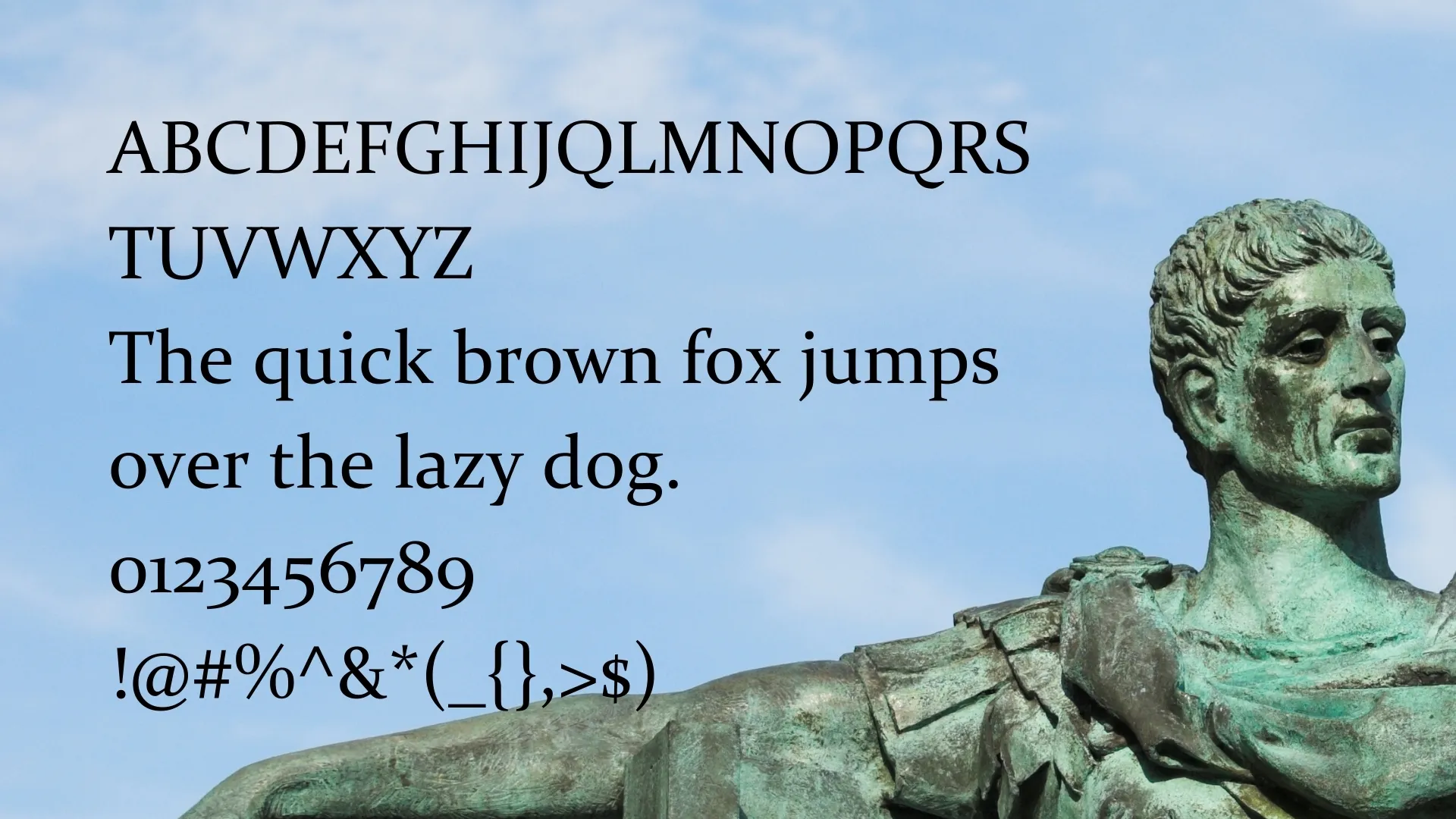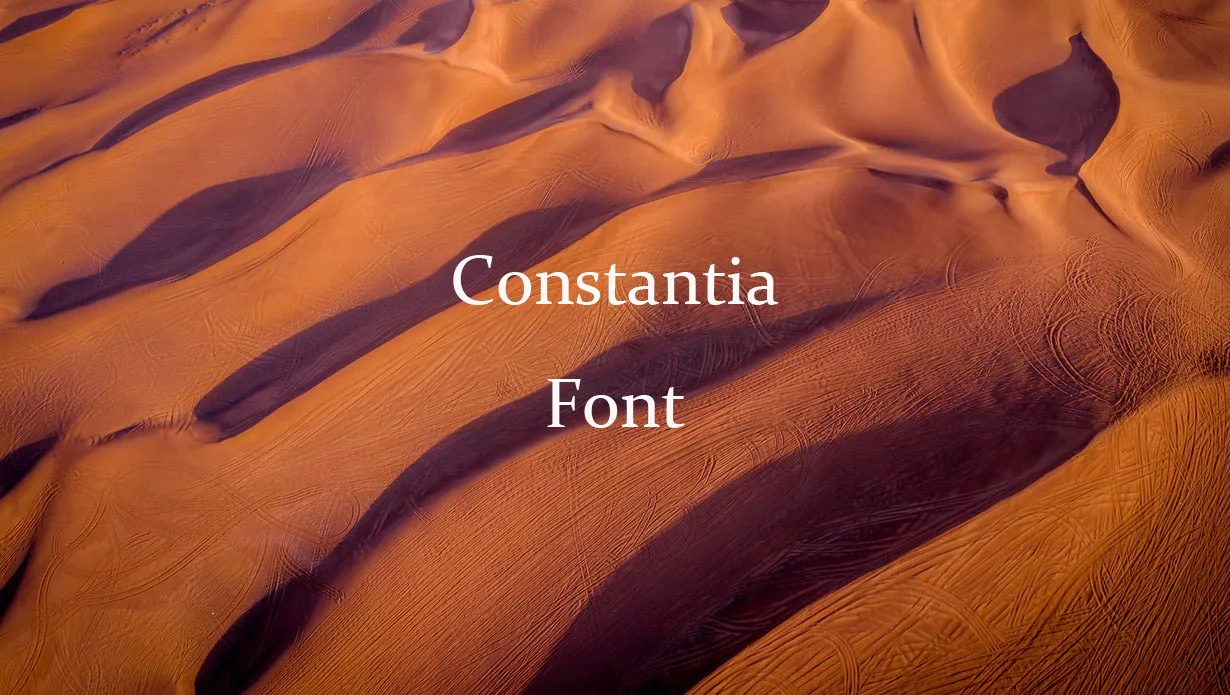
About Constantia Font
Constantia is a contemporary serif typeface designed by John Hudson and published by Microsoft Corporation. It was first released in 2006 as part of the Microsoft ClearType Font Collection, specifically designed to take advantage of ClearType font rendering technology.
This elegant typeface combines traditional serif characteristics with modern design elements, making it highly readable in both print and digital formats. Constantia features warm, organic shapes with subtle calligraphic influences, creating a friendly yet professional appearance that works well for extended reading.
Design Characteristics
- Excellent readability for long-form text
- Optimized for ClearType rendering
- Warm, organic letterforms with humanist qualities
- Distinctive italic style with calligraphic flair
- Well-balanced x-height for optimal reading comfort
- Comprehensive character set with extensive language support
Best Uses
- Book publishing and typesetting
- Academic papers and research documents
- Corporate reports and professional documents
- Website body text with superior readability
- Magazine and newspaper articles
- Legal documents and formal communications